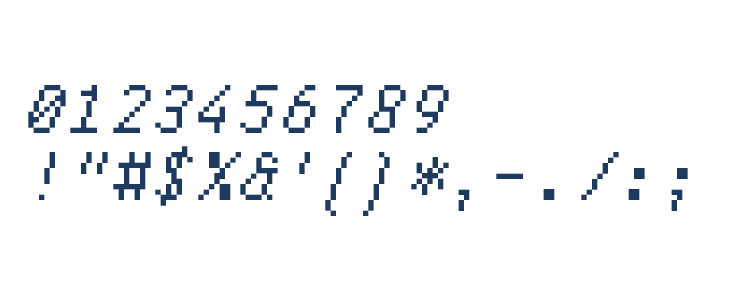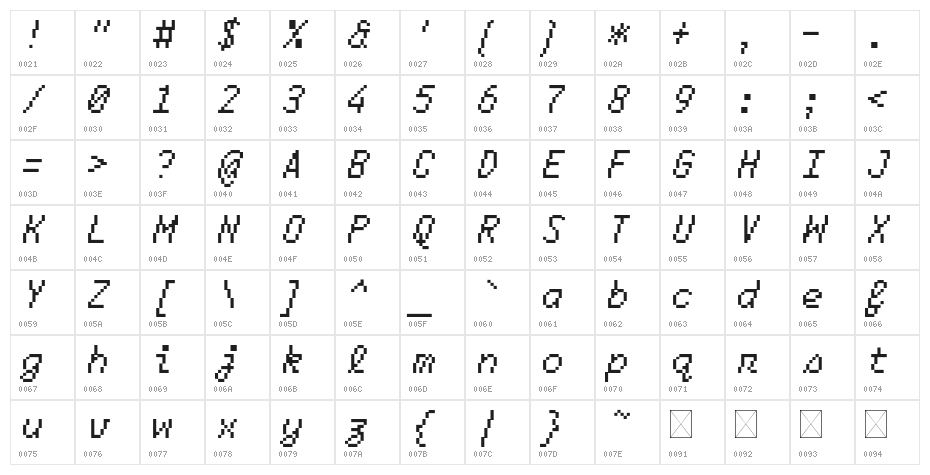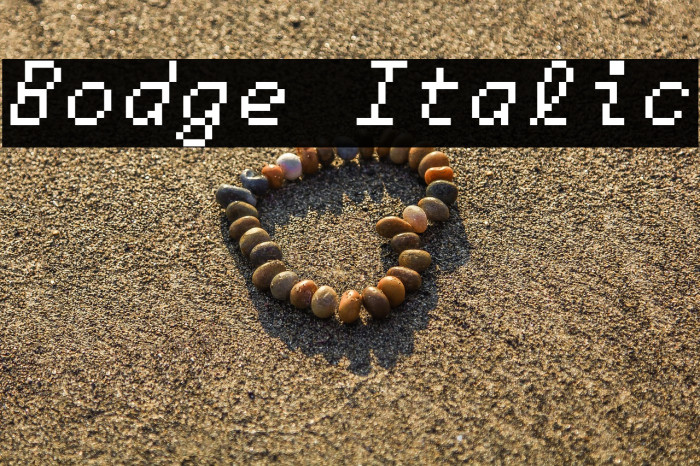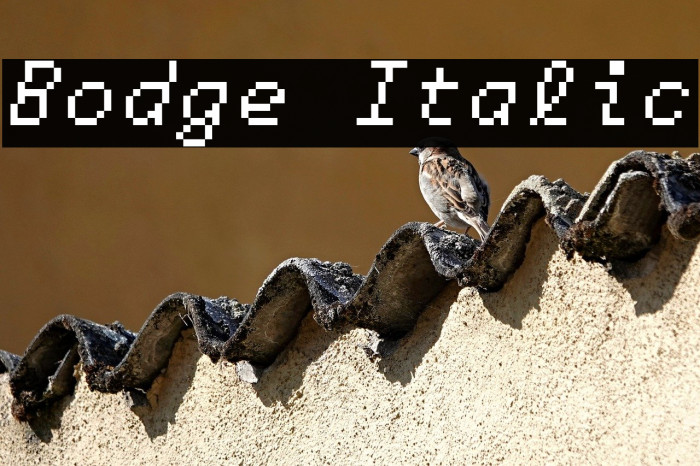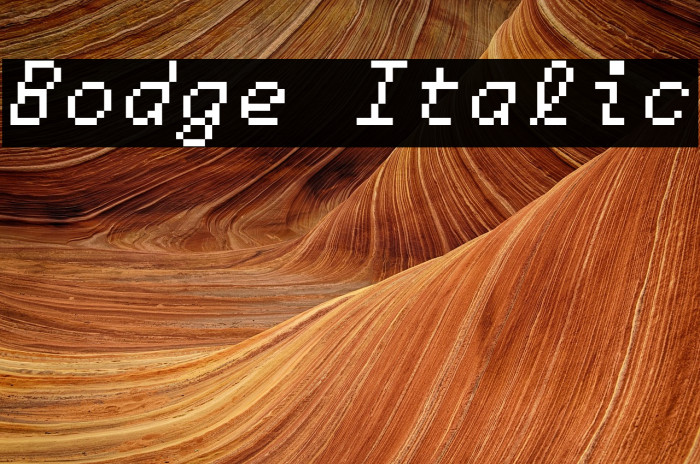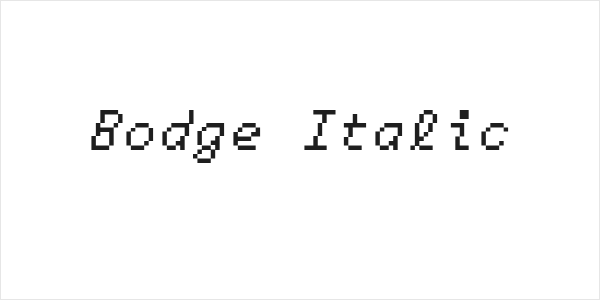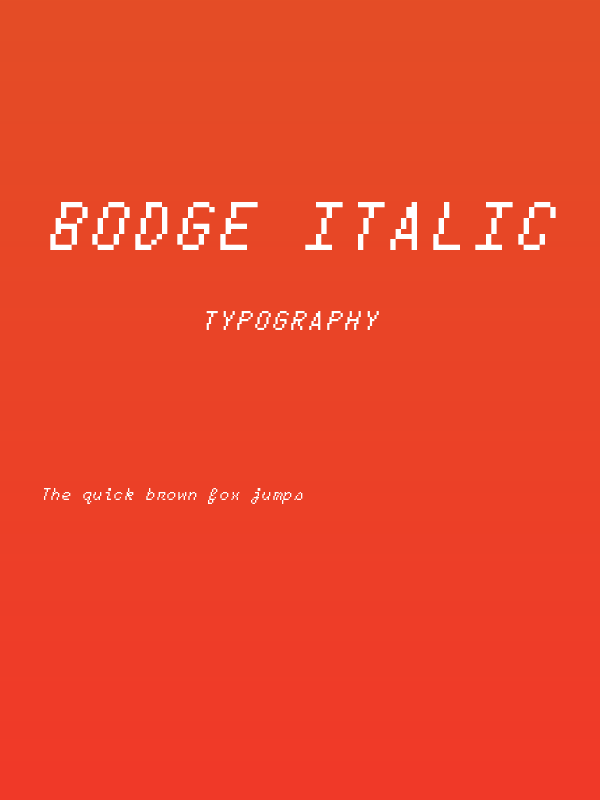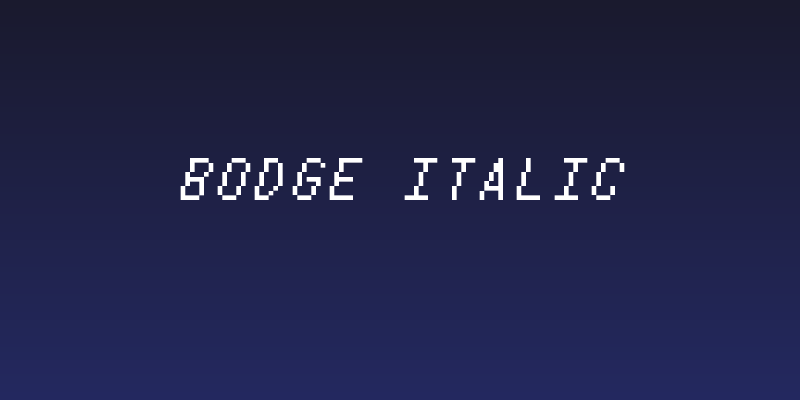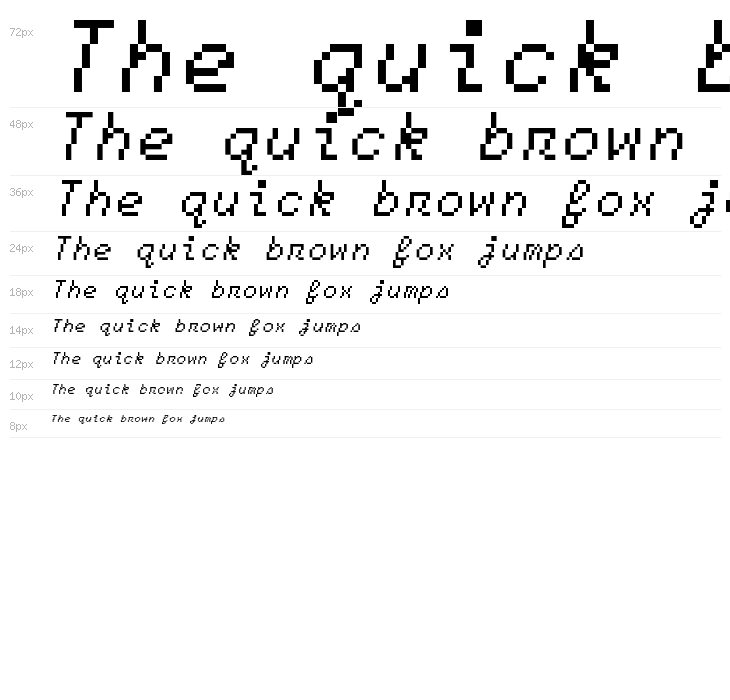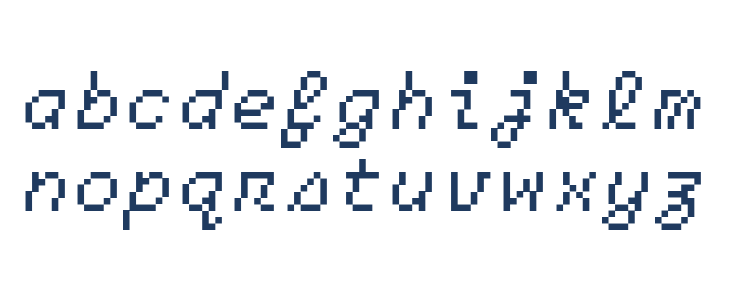
Bodge Italic Font
Bodge Italic Description
This font features a pixelated, monospaced design with a distinct italic slant, giving it a dynamic and modern appearance. Each character is composed of uniform square blocks, creating a digital and retro aesthetic reminiscent of early computer graphics or video games. The uppercase and lowercase letters maintain consistent height and width, ensuring readability while preserving the unique style. Numbers and special characters follow the same pixelated pattern, contributing to the cohesive look. The font's simplicity and geometric form make it suitable for projects that require a tech-inspired or nostalgic feel.
| Overall Style | Retro, Digital |
| Use Case | Logos, Headlines, Digital interfaces |
| Proposed Projects | Ideal for video game design, tech-themed posters, digital art projects, and retro-style branding. |